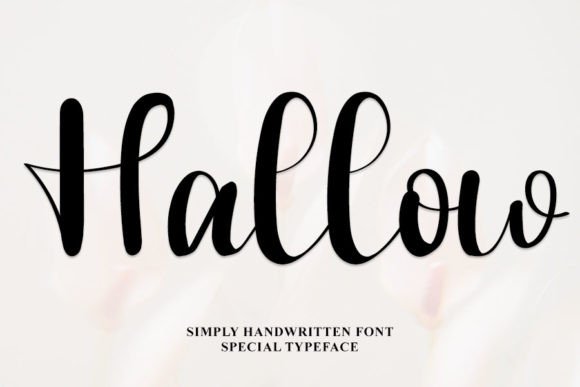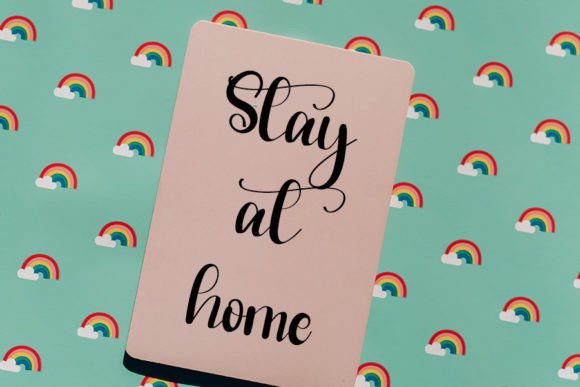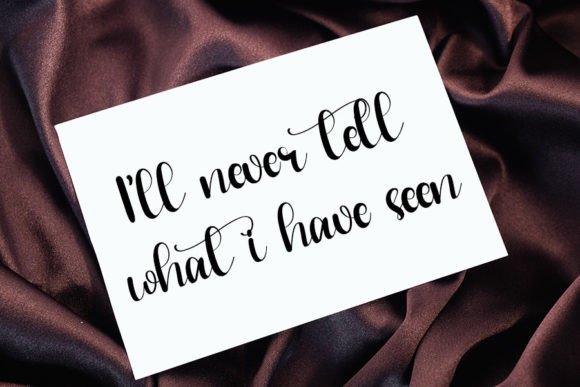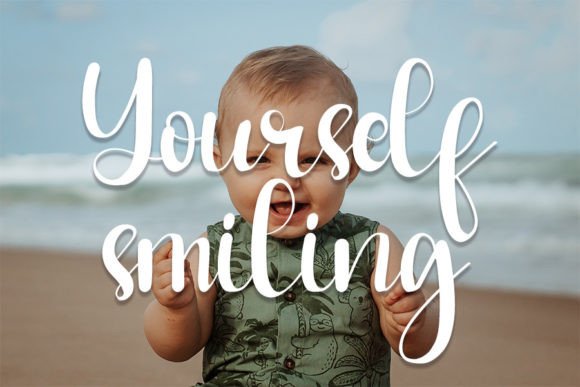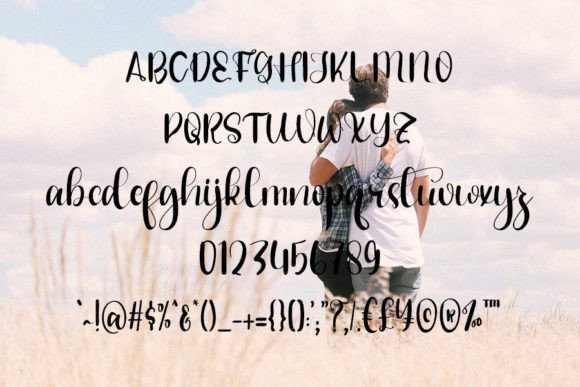
Elevate your design projects with the Hallow font, a stylish handwritten script that combines a modern vibe with timeless classic calligraphy inspiration. This font is balanced and varied, designed to add elegance and sophistication to any creative work.
The Hallow font is perfect for various applications such as branding, logos, invitations, headlines, social media posts, and packaging designs. Its clean and flowing style makes it highly versatile for different design needs.
Inspired by classic calligraphy, the Hallow font merges traditional handwriting elements with a contemporary touch. This blend offers your projects a refined and artistic look that stands out.
Despite its stylish appearance, the Hallow font ensures excellent readability. It works well for bold headlines and smaller text details, providing flexibility for various design purposes.
Using the Hallowfont will help you create stunning, professional, and memorable designs. If you’re looking for a handwritten font with classic charm and modern style, this font is an excellent choice.
In summary, the Hallowfont is a stylish and balanced handwritten script inspired by classic calligraphy. Ideal for logos, branding, invitations, and more. Download it today and add beauty to your creative projects with Hallow.